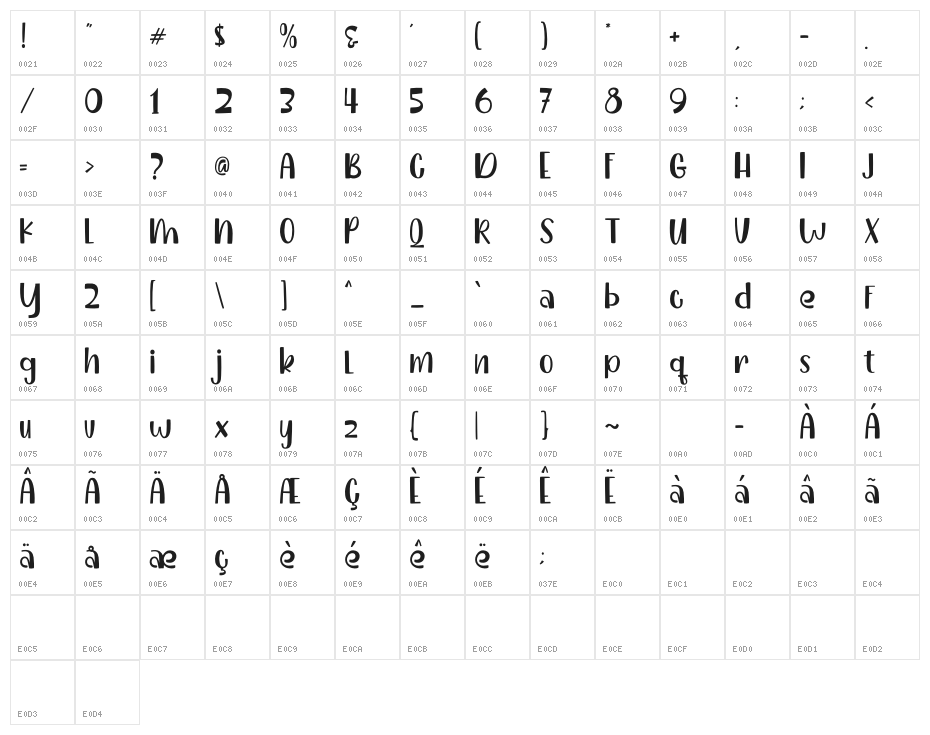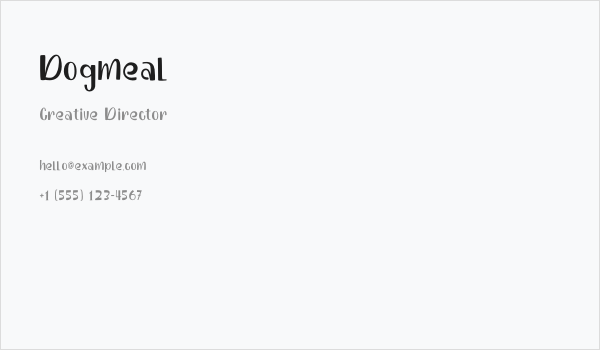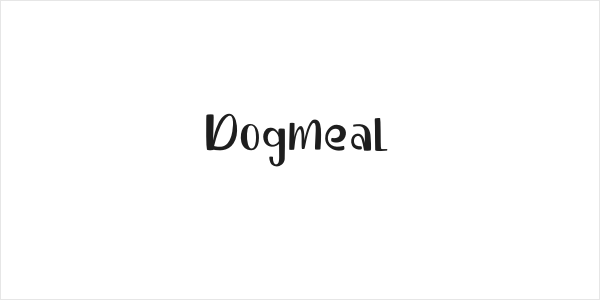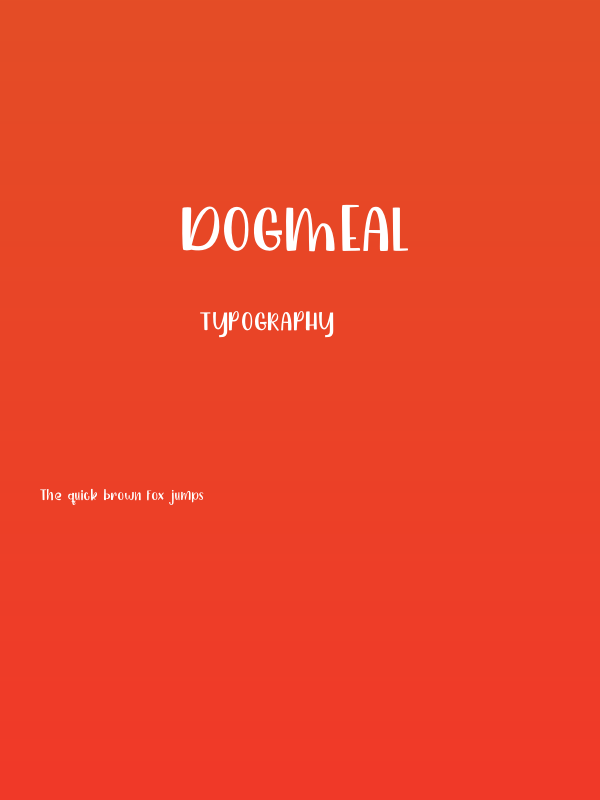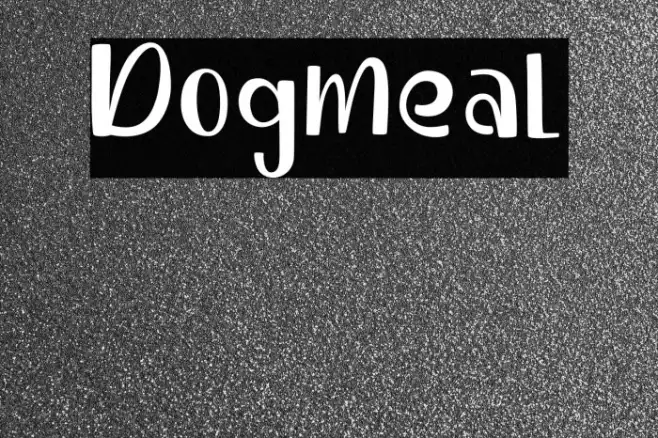
Dogmeal Font
Dogmeal Description
This font features a playful and bold style with a handwritten appearance. The characters are slightly irregular, adding a whimsical and casual feel. The uppercase letters are tall and narrow, while the lowercase letters maintain a consistent height with rounded edges. Numbers are bold and easily distinguishable, matching the overall playful theme. Special characters are creatively designed, fitting seamlessly with the rest of the font. This font's unique style makes it stand out, perfect for projects that require a fun and informal touch.
| Proposed Projects | Ideal for children's books, playful branding, casual invitations, and creative posters. |